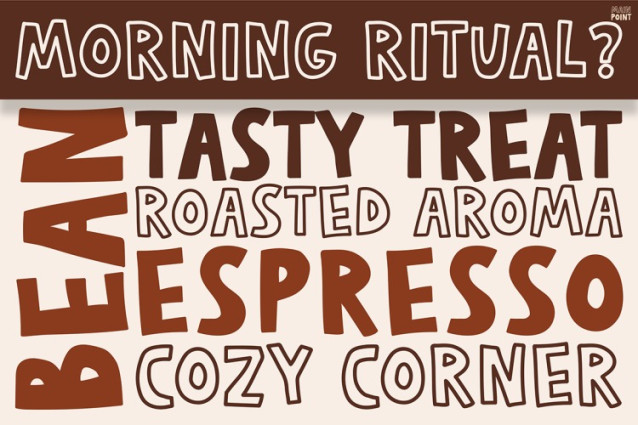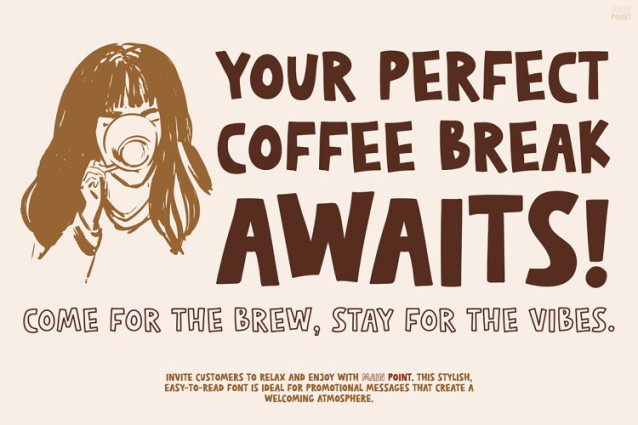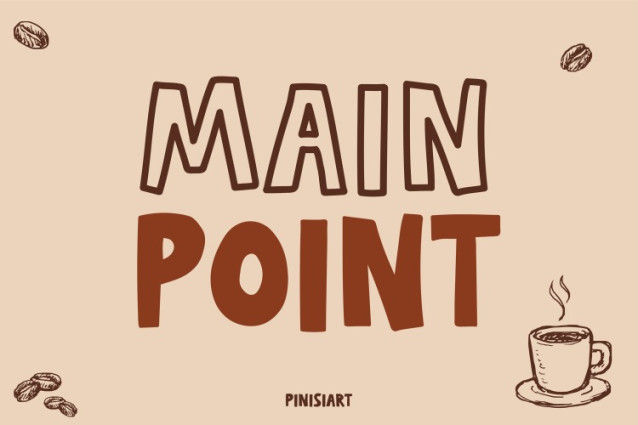
Main Point Font
Main Point Font is a playful, bold typeface full of charm. With its hand-drawn style and round shapes, it brings a cozy, inviting look. As a result, it’s perfect for brands that want to feel warm, friendly, and expressive. Whether you’re designing for social media or printed promos, this font grabs attention right away. Moreover, its unique style stands out while remaining easy to read. The variation in line thickness adds movement and personality to every word. Therefore, it turns simple messages into engaging, memorable content. In short, it’s not just a font—it’s a personality booster for your brand.
Main Point works especially well in modern marketing and social content. For example, as shown in the Instagram and flyer samples, it fits perfectly with coffee themes and lifestyle messaging. Additionally, the bold letters contrast beautifully with light backgrounds, making every post more eye-catching. It is ideal for headlines, announcements, quotes, and promotional materials. Thanks to its soft edges and hand-drawn look, it delivers a relaxed yet confident tone. Consequently, it adds joy to your words while keeping them readable and bold.